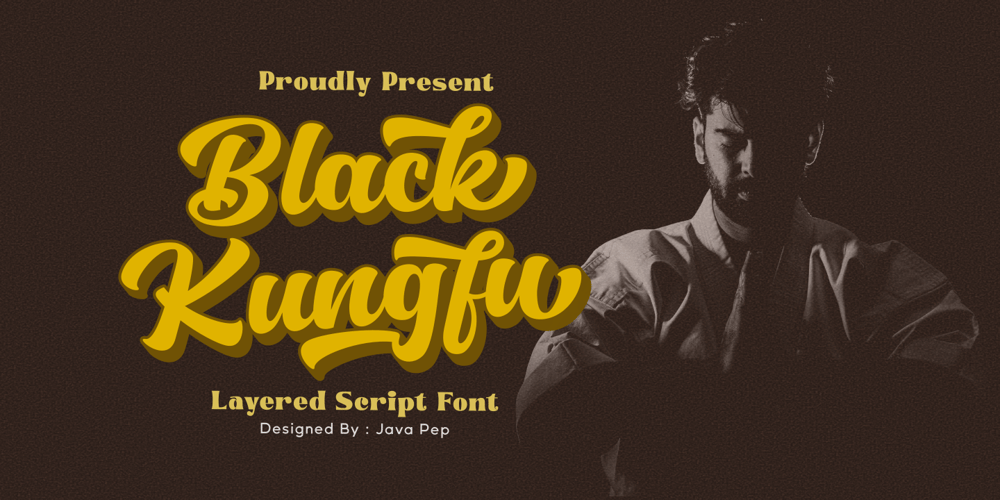
Black Kungfu Font Family was designed by Java Pep and published by Java Pep. Black Kungfu contains 2 styles and family package options. Proudly present fresh from the oven, the layered script font called Black Kungfu Font. For use the layered font the regular font must to placing in front of and extruded font for background This font is designed to emphasize beauty and timelessness, so it can be used on classic, modern, and contemporary themes. Black Kungfu font comes with lot of alternate glyphs such as alternate, staylistic alternate, and swash. This font also has multilingual support more than 25 languages.Features Uppercase, lowecase, and punctuations PUA Encoded Multilingual Support more than 25 languages PUA Encoded Opentype features such as alternate, staylistic alternate, and swash